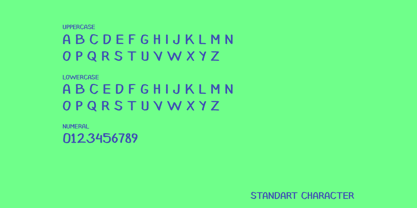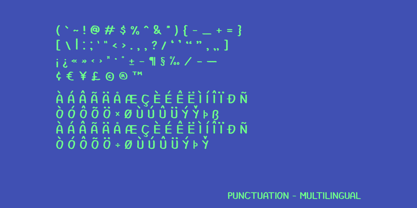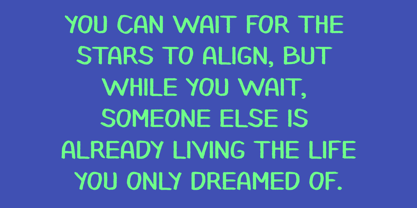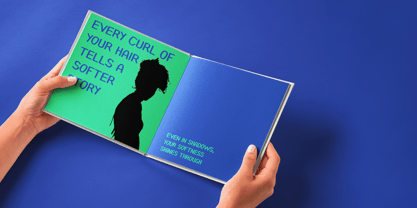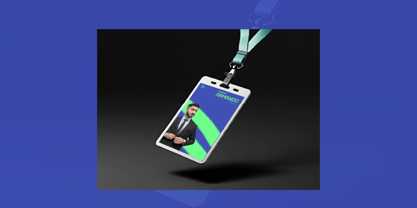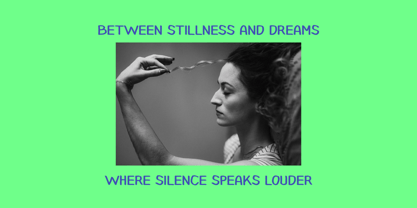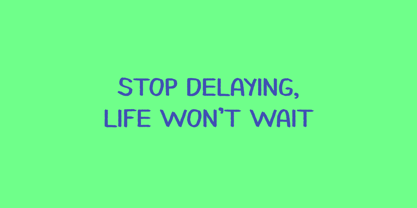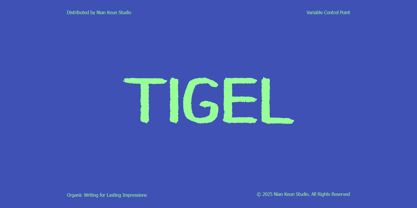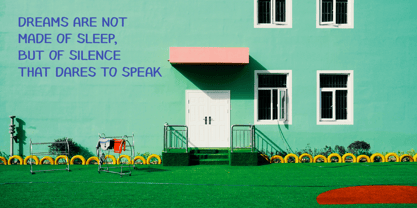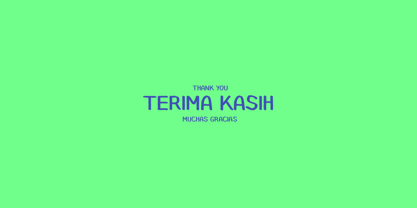
Tigel
by Nian Keun Studio
The Tigel Font Family was designed by Mugi Raharjo and published by Nian Keun Studio. Tigel contains 1 styles. More about this family
Tigel is a display typeface designed to capture attention with its organic strokes and rugged texture. Its handcrafted look brings a sense of authenticity and energy, making it perfect for projects that demand a raw, human touch while still maintaining strong readability.
The font is built with Variable Control Point technology, allowing smooth adaptability across different design needs. From bold posters to expressive branding, Tigel provides flexibility and visual power in every composition.
Font Features:
** All Uppercase letters
** Punctuation & multilingual support
* Organic textured strokes for a handcrafted feel
* Variable Control Point for flexible adjustments